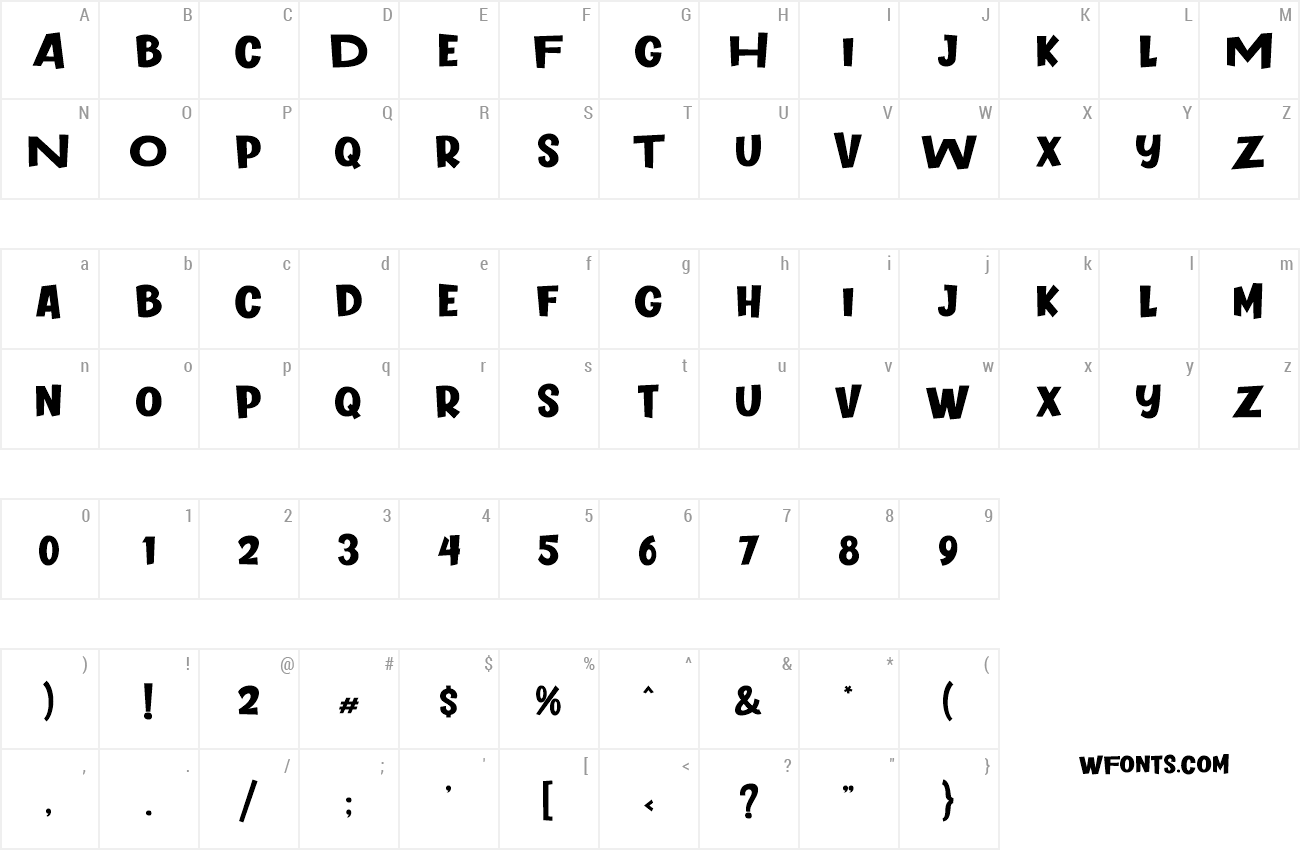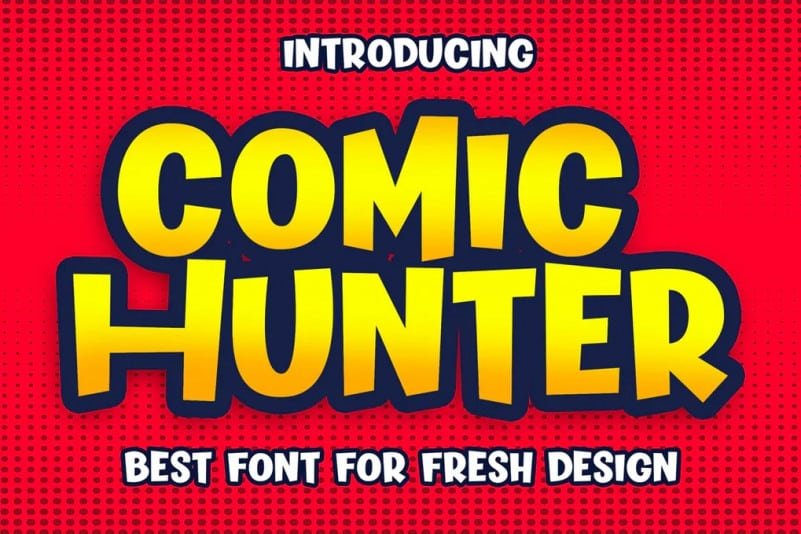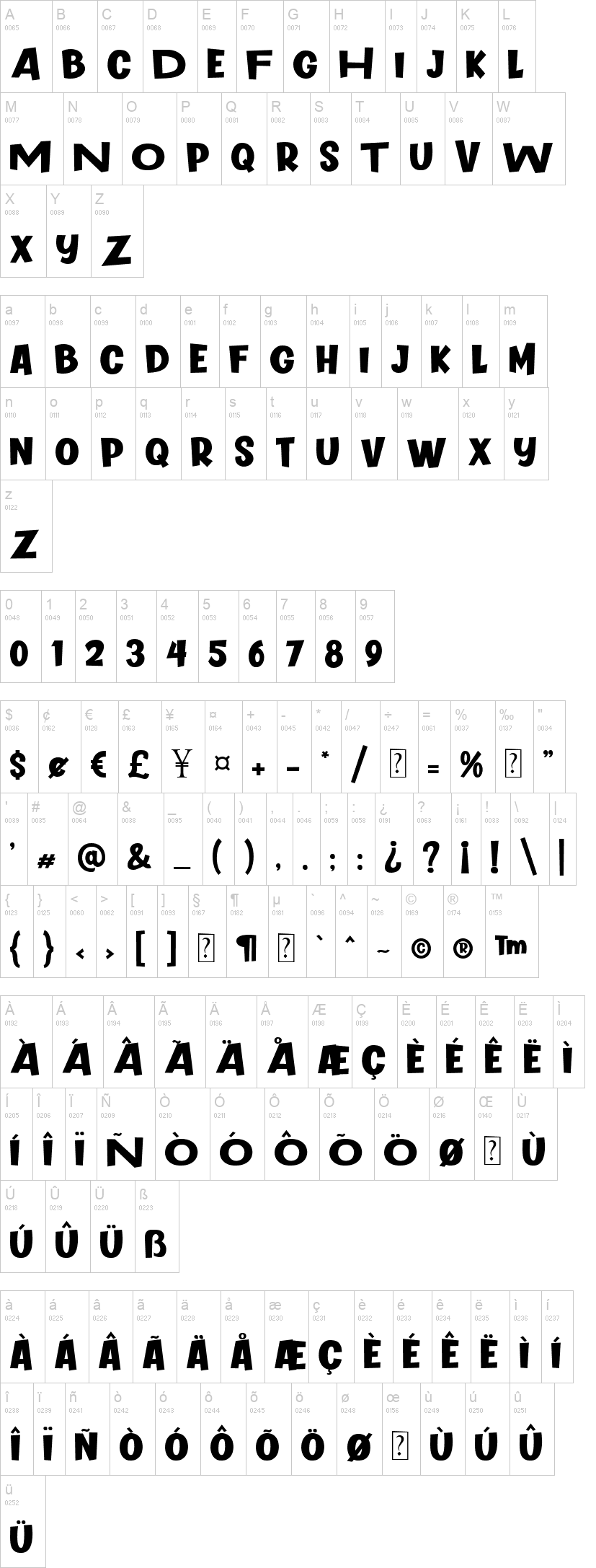
Comic Hunter Font
Comic Hunter Font - Web looking for comic hunter font designed by lettersiro studio? Web comic hunter font details. Web in fancy > cartoon 25,219 downloads (14 yesterday) free for personal use download donate to author comic hunter.ttf note of. Access over 20,000 + commercial fonts with download now. ️ this font has been downloaded 70+ times. Comic hunter is fresh font that perfect for educational design, comic, kids book, kids magazine, zoo. A subfamília da fonte é regular. ️ customize your own preview on. Click here to create a custom image with your own text. Web the comic hunter font adds a level of fun to all of your work.
You can download the comic. View font details, character map, custom preview, downloads, file contents and more. Web comic hunter é a fonte perfeita para todos os seus designs divertidos. Web the comic hunter font contains 213 beautifully designed characters. Comic hunter comic hunter.ttf 48 kb | note: Web in fancy > cartoon 25,219 downloads (14 yesterday) free for personal use download donate to author comic hunter.ttf note of. Access over 20,000 + commercial fonts with download now. Web looking for comic hunter font designed by lettersiro studio? The typeface contains 1 file and supports 37 languages. Comic hunter by typeface ?
Web comic hunter is a font. Web download comic hunter font (1 styles). You can download the comic. Click here to create a custom image with your own text. Web comic hunter (1 style)1 style) home. Web comic hunter font family designed by unknown designer has a total of 1 different styles. The typeface contains 1 file and supports 37 languages. Web in fancy > cartoon 25,219 downloads (14 yesterday) free for personal use download donate to author comic hunter.ttf note of. ️ customize your own preview on. Web comic hunter display font need something else?
Web comic hunter is a font. This font is for personal use only! Web comic hunter é a fonte perfeita para todos os seus designs divertidos. Web comic hunter font details. Web comic hunter font family designed by unknown designer has a total of 1 different styles.
Web the comic hunter font contains 213 beautifully designed characters. ️ this font has been downloaded 70+ times. You can download the comic. View font details, character map, custom preview, downloads, file contents and more. Web comic hunter font family designed by unknown designer has a total of 1 different styles.
The typeface contains 1 file and supports 37 languages. Web comic hunter é a fonte perfeita para todos os seus designs divertidos. Web download and install the comic hunter font for free from ffonts.net. A subfamília da fonte é regular. Comic hunter is fresh font that perfect for educational design, comic, kids book, kids magazine, zoo.
Web download and install the comic hunter font for free from ffonts.net. Click here to create a custom image with your own text. Web comic hunter font details. Web the comic hunter font adds a level of fun to all of your work. Web comic hunter display font need something else?
View font details, character map, custom preview, downloads, file contents and more. Web jan 13, 2020. Web description rather than follow a particular comic book lettering model, classic comic’s forms are constructed with the natural tilt. Web download and install the comic hunter font for free from ffonts.net. You can download the comic.
Web in fancy > cartoon 25,219 downloads (14 yesterday) free for personal use download donate to author comic hunter.ttf note of. Comic hunter is fresh font that perfect for educational design, comic, kids book, kids magazine, zoo. Comic hunter by typeface ? Access over 20,000 + commercial fonts with download now. This font is for personal use only!
Web comic hunter display font need something else? You can download the comic. View font details, character map, custom preview, downloads, file contents and more. Web description rather than follow a particular comic book lettering model, classic comic’s forms are constructed with the natural tilt.
Comic hunter is fresh font that perfect for educational design, comic, kids book, kids magazine, zoo. Click here to create a custom image with your own text. Web download comic hunter font (1 styles). Web the comic hunter font adds a level of fun to all of your work.